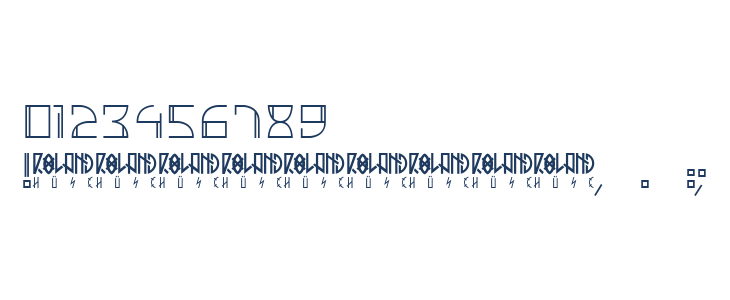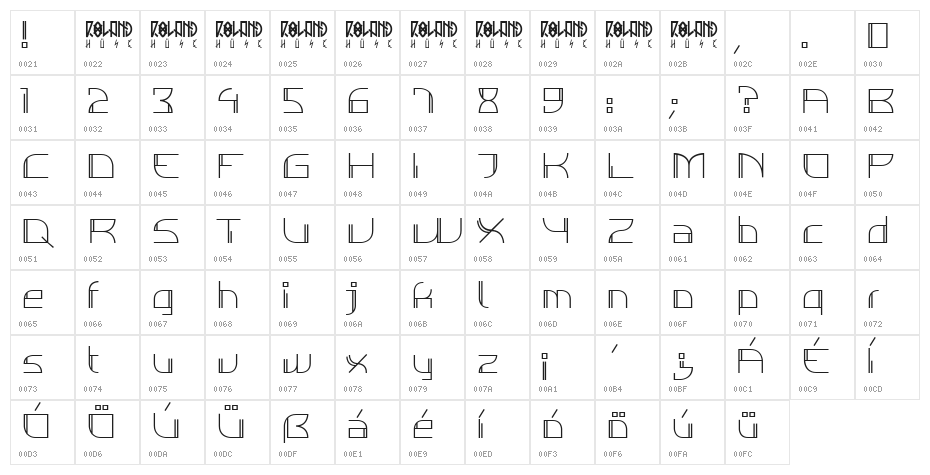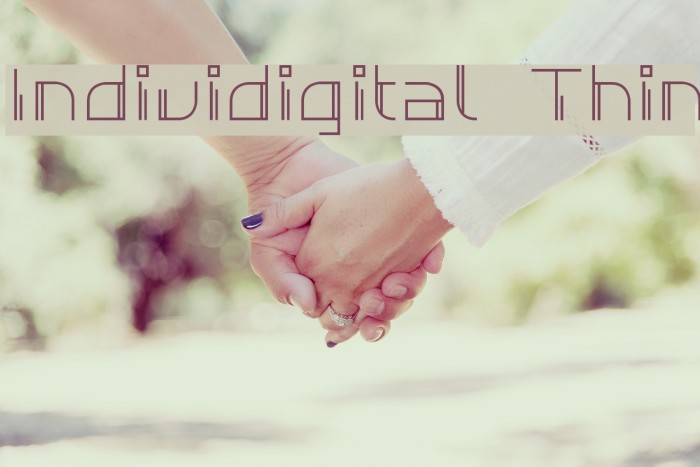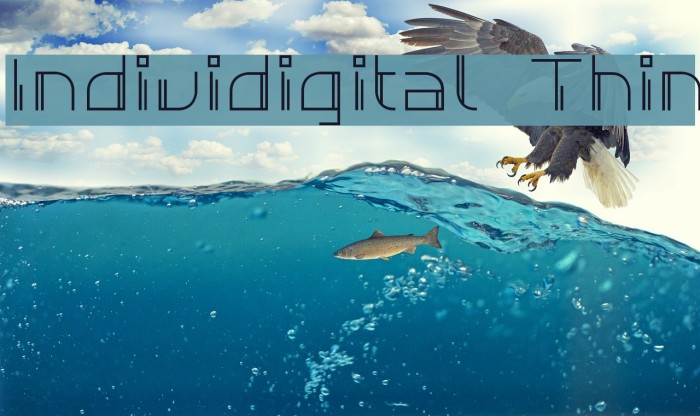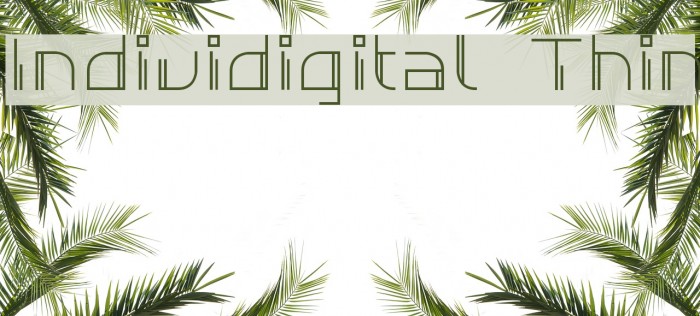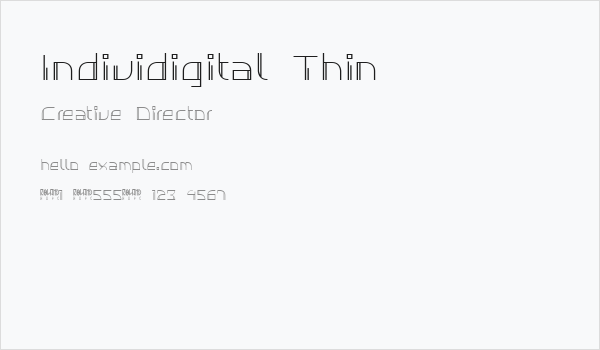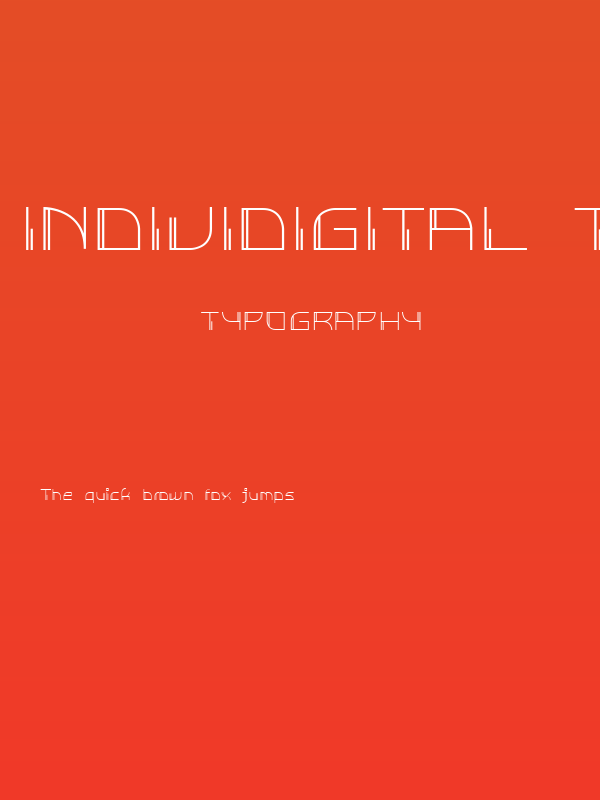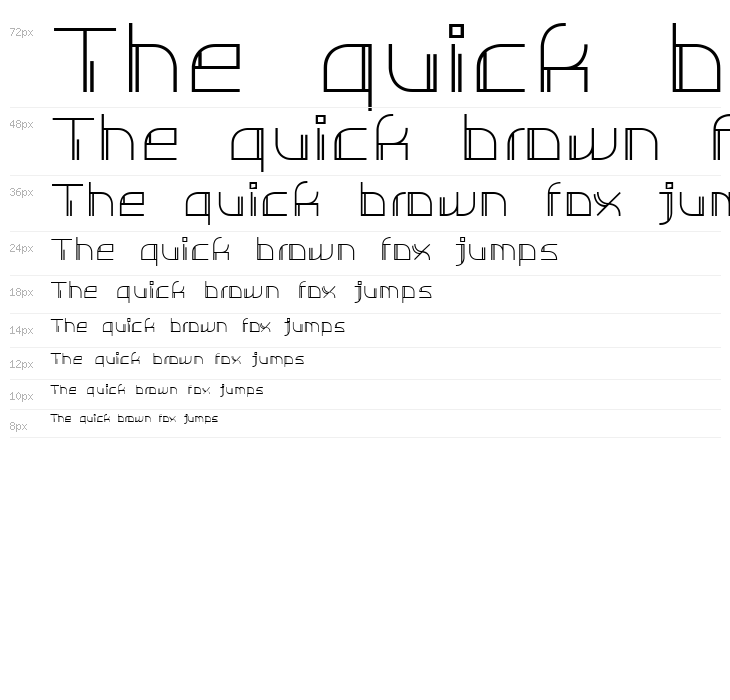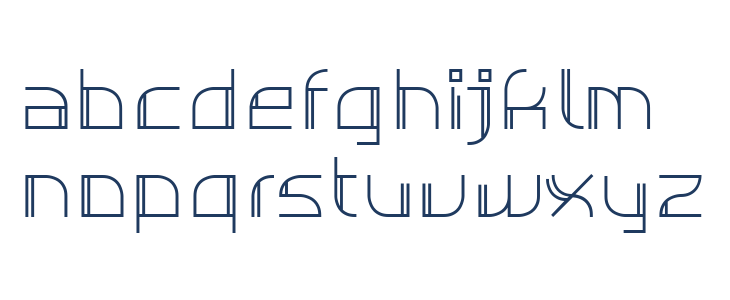
Individigital Thin Font
Individigital Thin Description
This font features a sleek, geometric design with a modern and futuristic aesthetic. The characters are constructed with thin, precise lines, giving it a minimalist and clean appearance. The uppercase letters exhibit a uniform height and width, while the lowercase letters maintain a consistent style, enhancing readability. The numerals are distinct and align well with the overall design, making them suitable for digital displays. Special characters are integrated seamlessly, maintaining the font's cohesive look. Its unique style makes it ideal for projects that require a contemporary and tech-savvy feel.
| Use Case | Logos, Digital displays, Tech branding |
| Proposed Projects | Ideal for tech branding, digital interfaces, modern posters, and futuristic designs. |